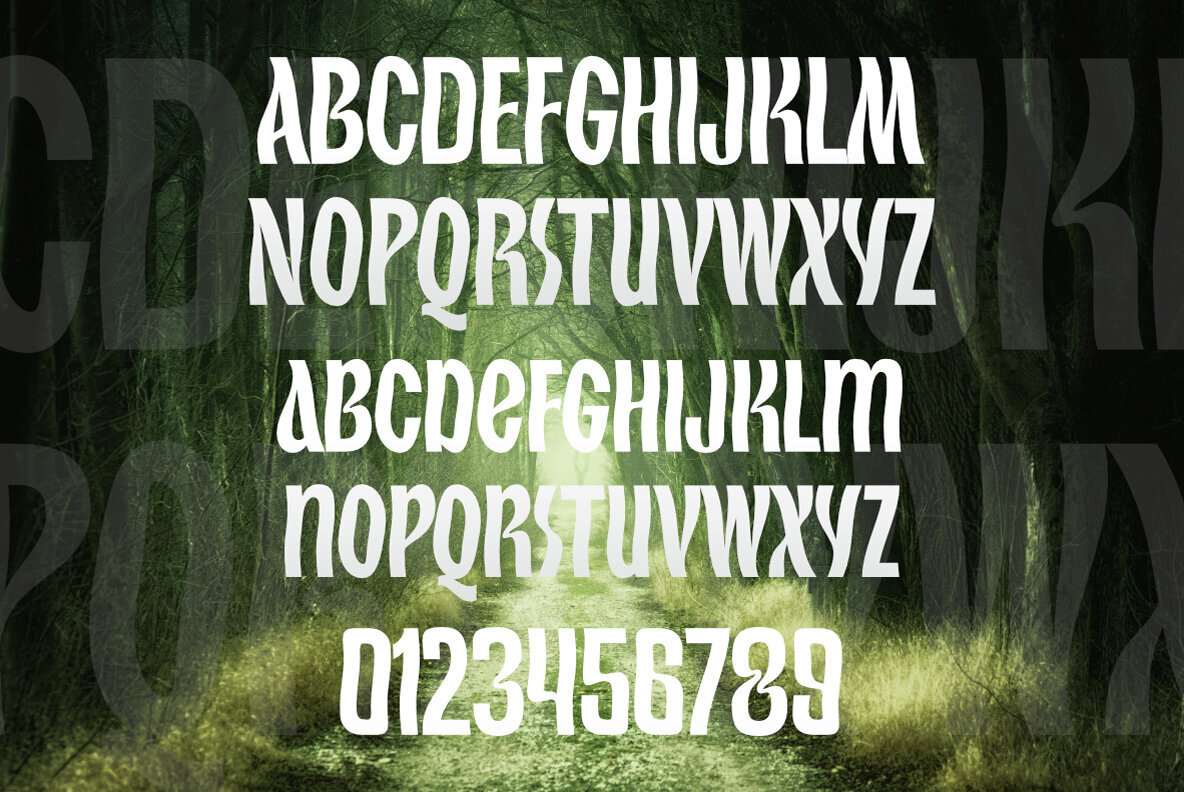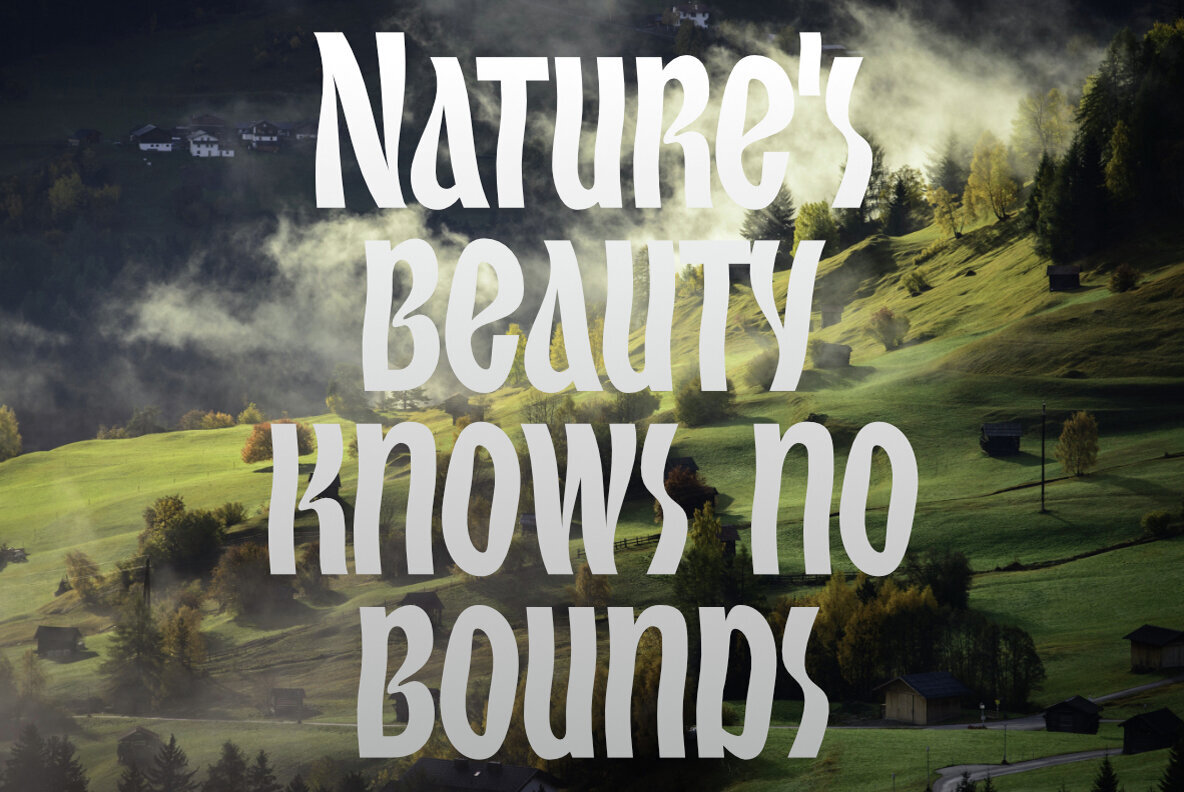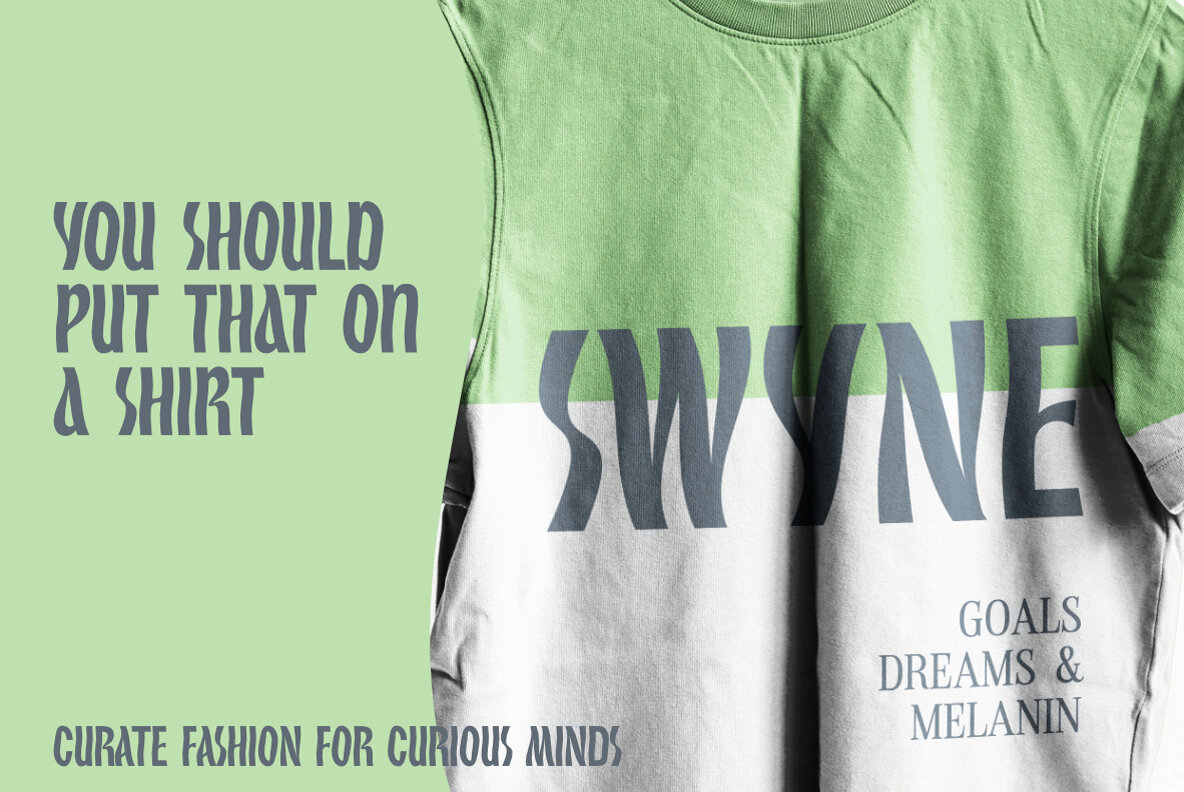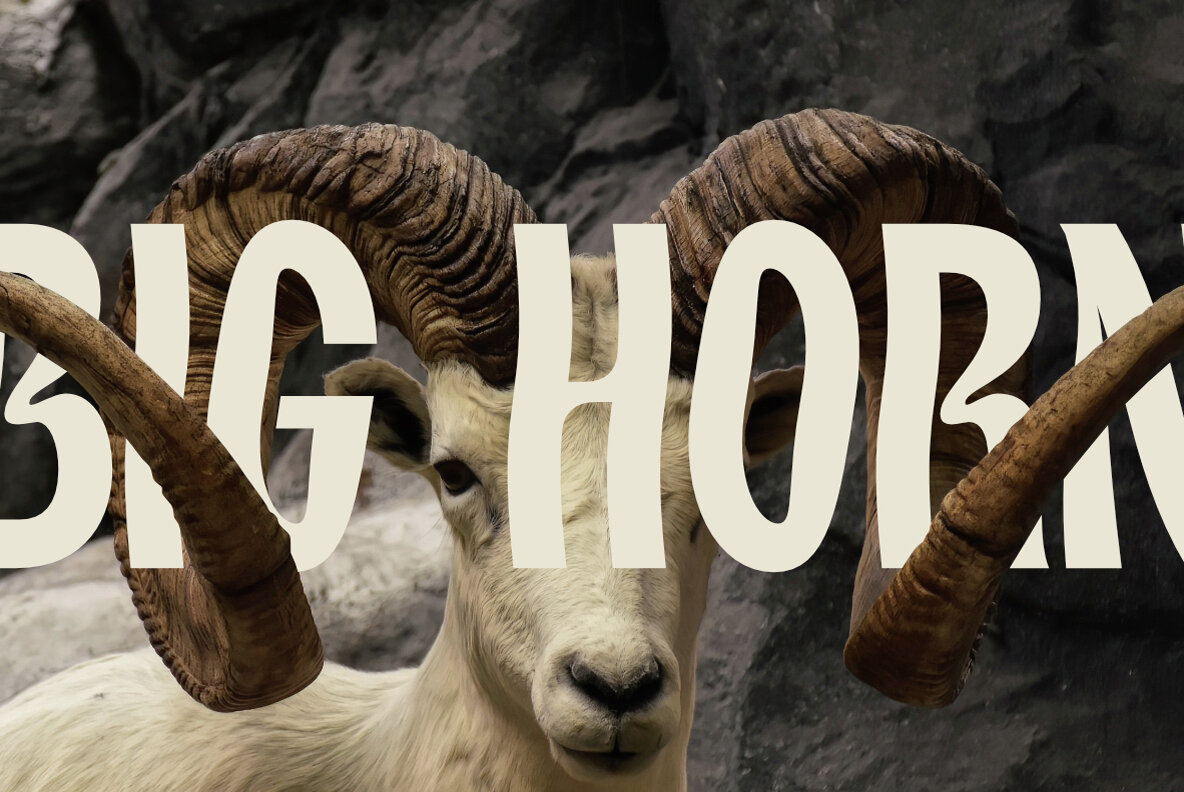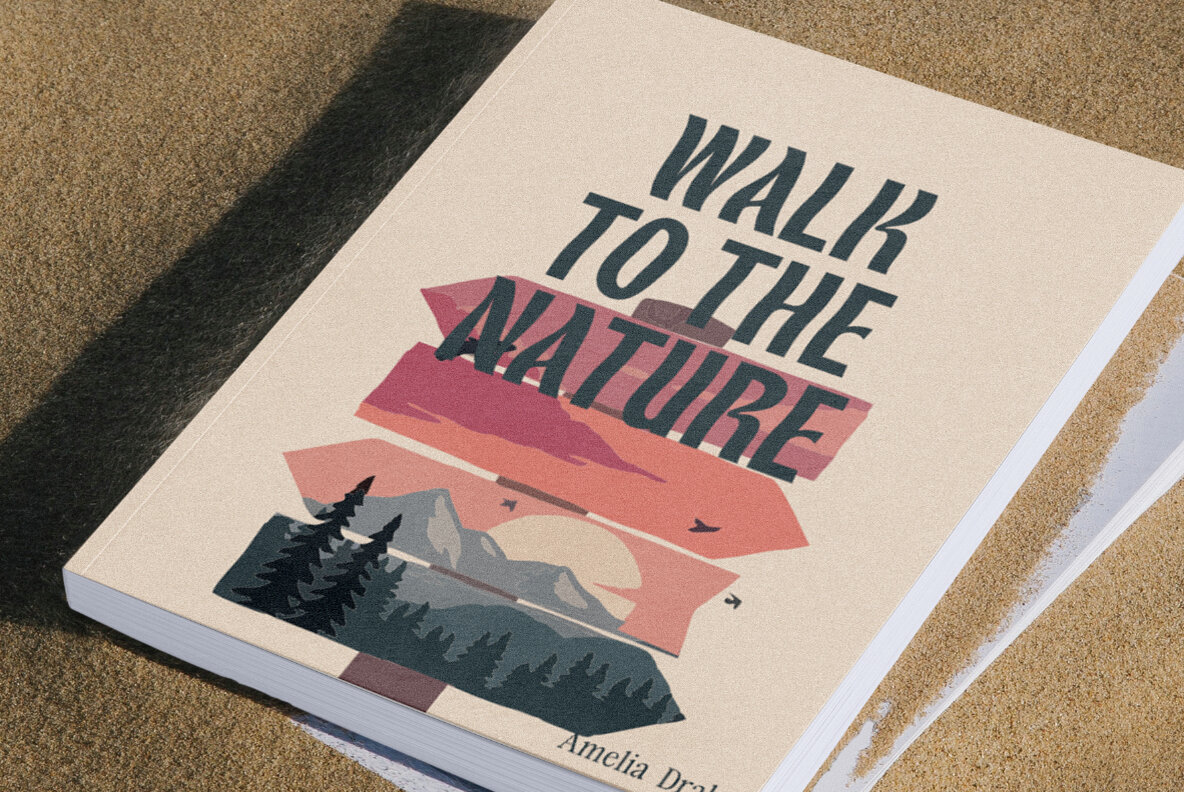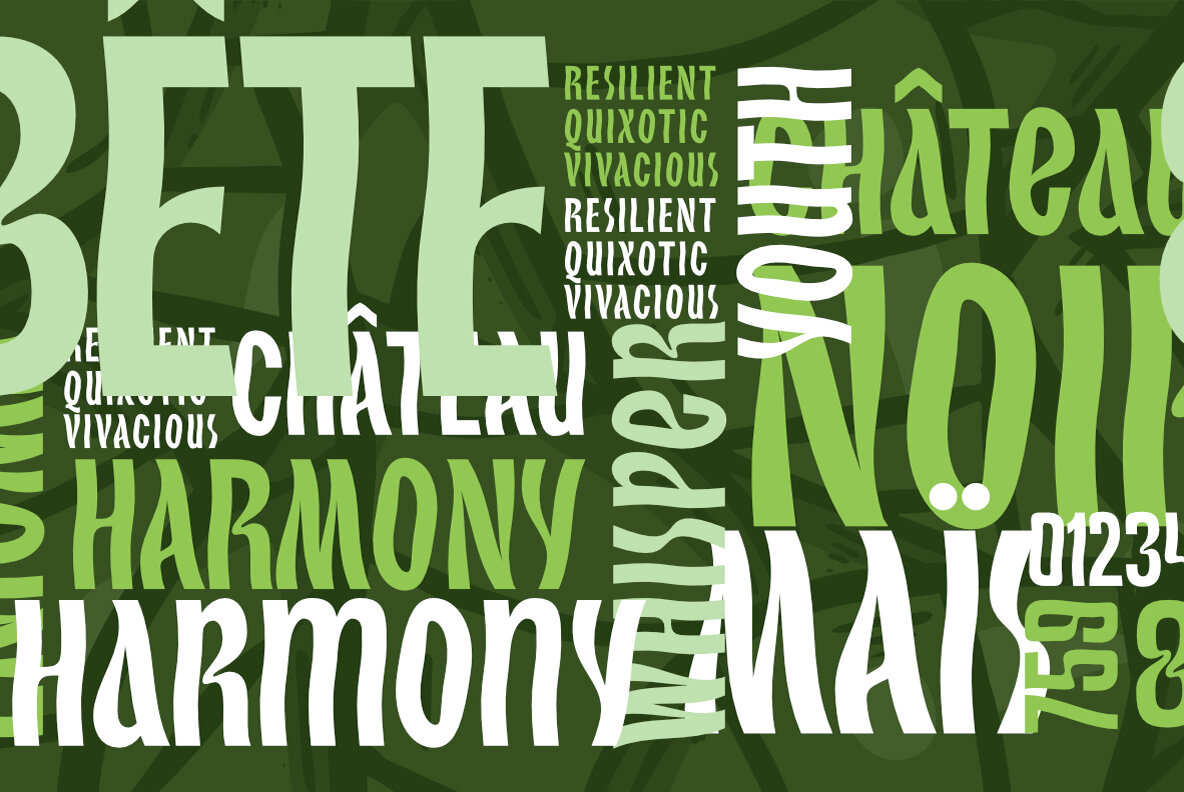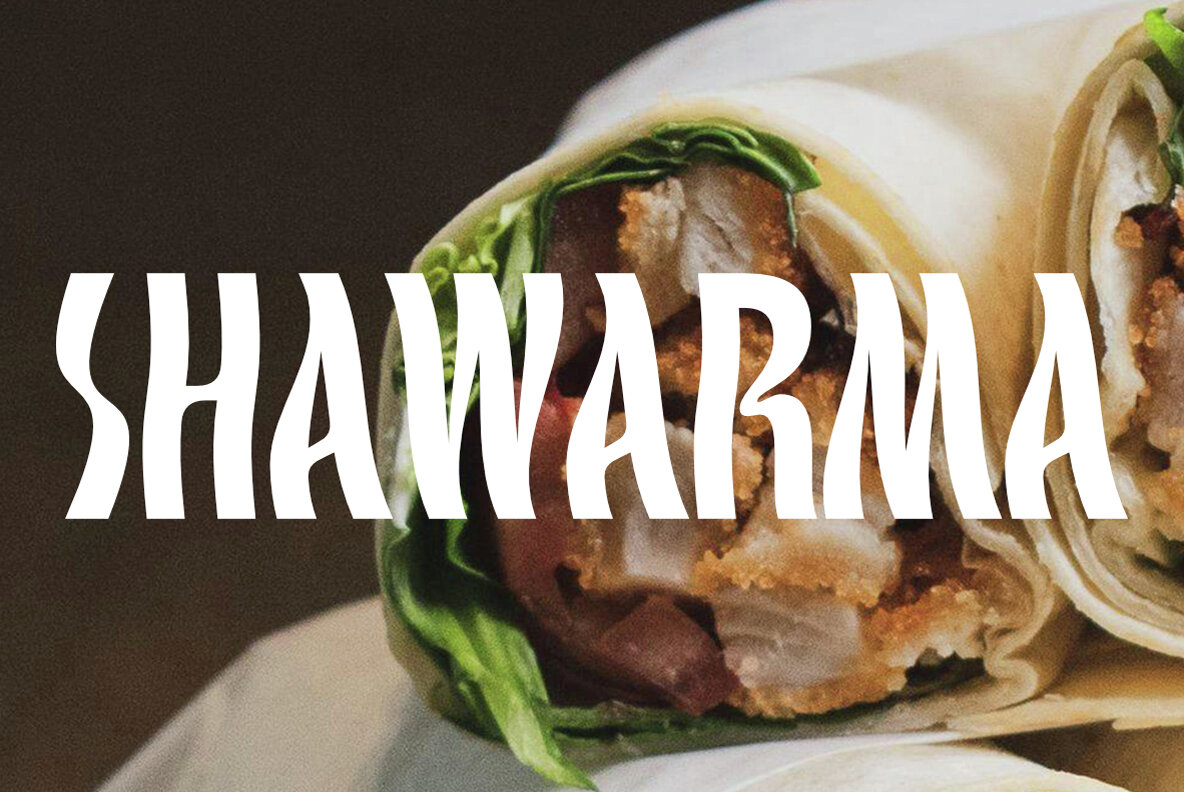
Serway Font
Serway Bold Condensed
Serway is a captivating typeface that seamlessly blends elegance with a touch of playfulness. This font's defining characteristic is its wavy stems, which give each character a dynamic and fluid appearance. The wavy stems gracefully meander, creating a harmonious rhythm that adds a unique visual appeal to any design. The wavy stems in Serway mimic the graceful movement of gentle waves, the bending of tall grasses in the wind, or the meandering path of a flowing river. These organic shapes infuse each character with a sense of fluidity and harmony. The sans serif structure of Serway maintains a contemporary and modern aesthetic. The clean lines and smooth curves of the letterforms offer a sense of simplicity and sophistication, perfectly complementing the nature-inspired wavy stems. Serway is an ideal choice for various design projects, including editorial design, packaging, headlines, web design, logo creation, and branding. Its wavy stems add a distinct touch that sets it apart from traditional sans serif fonts, making it perfect for designs that seek to capture attention and create a memorable visual impact.